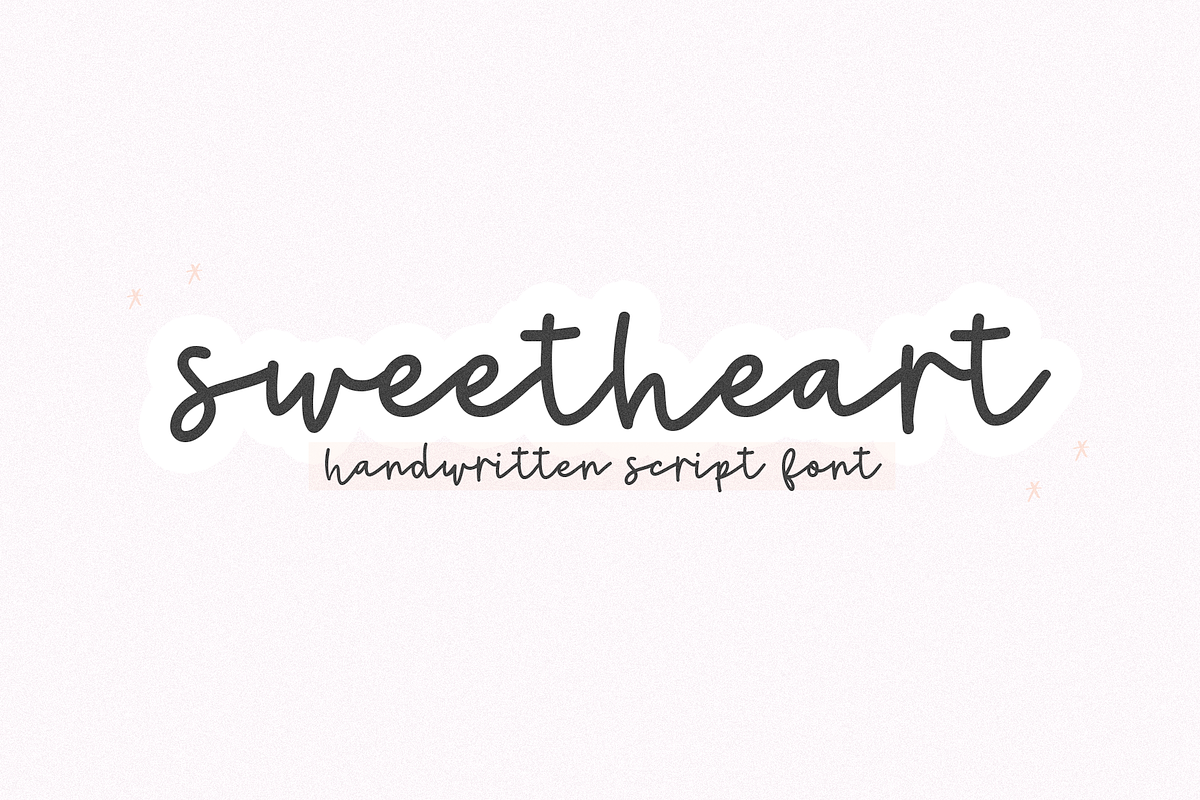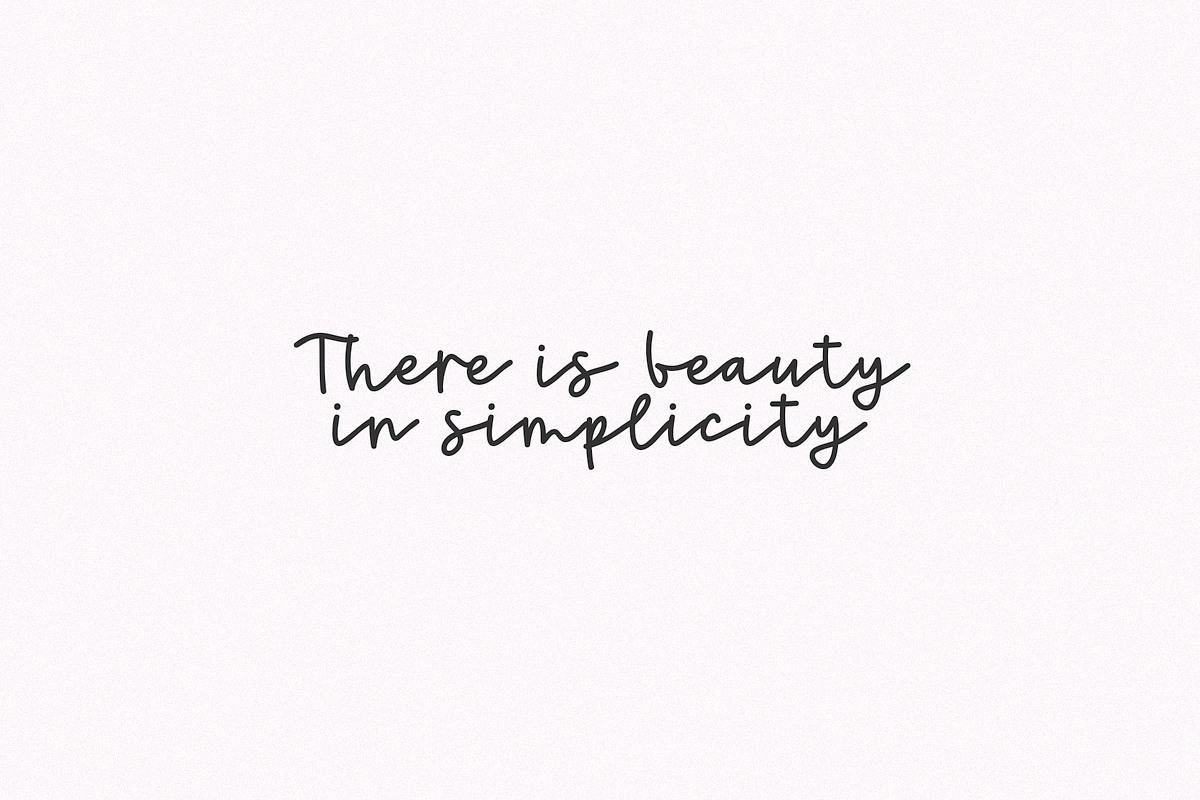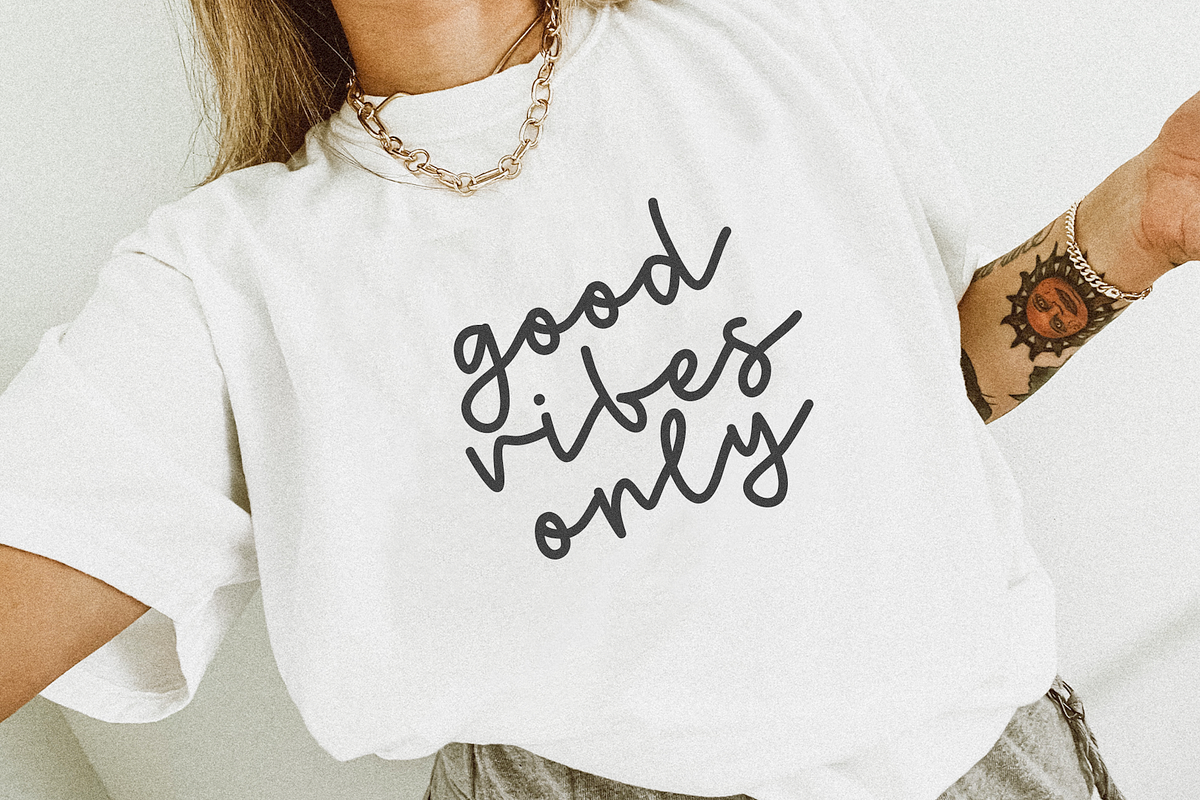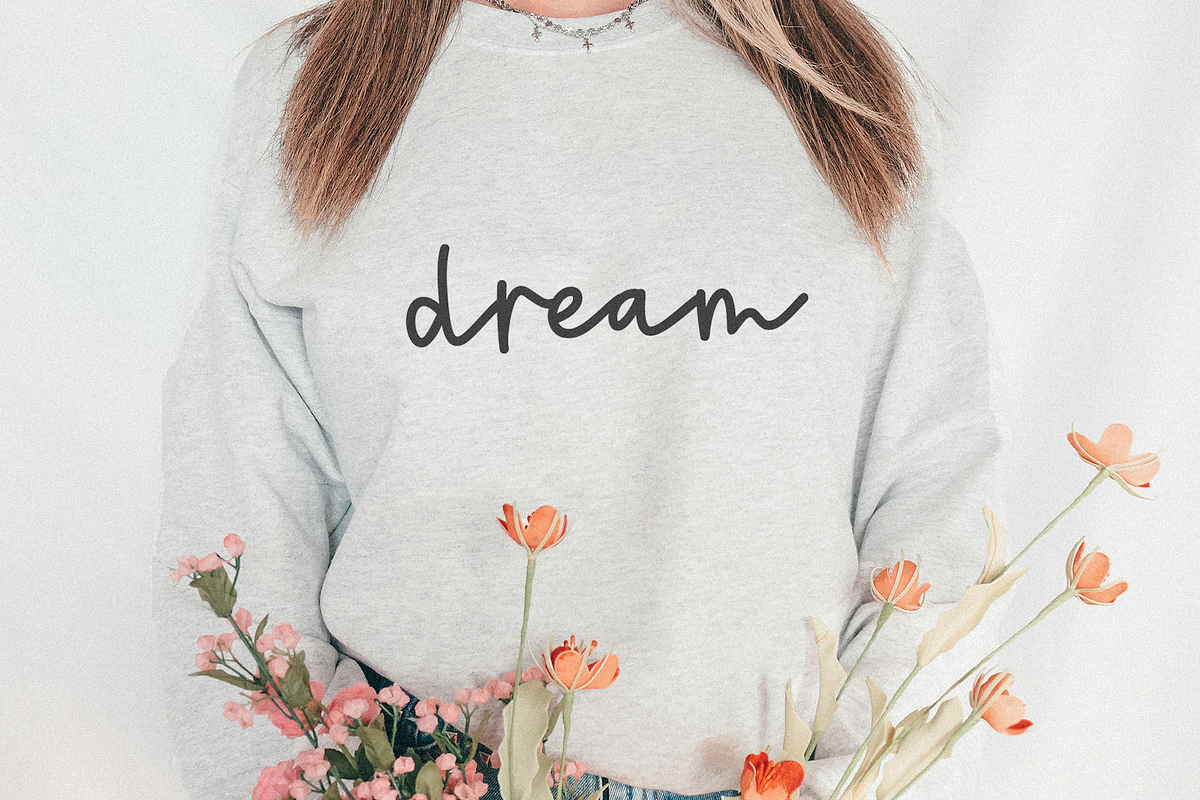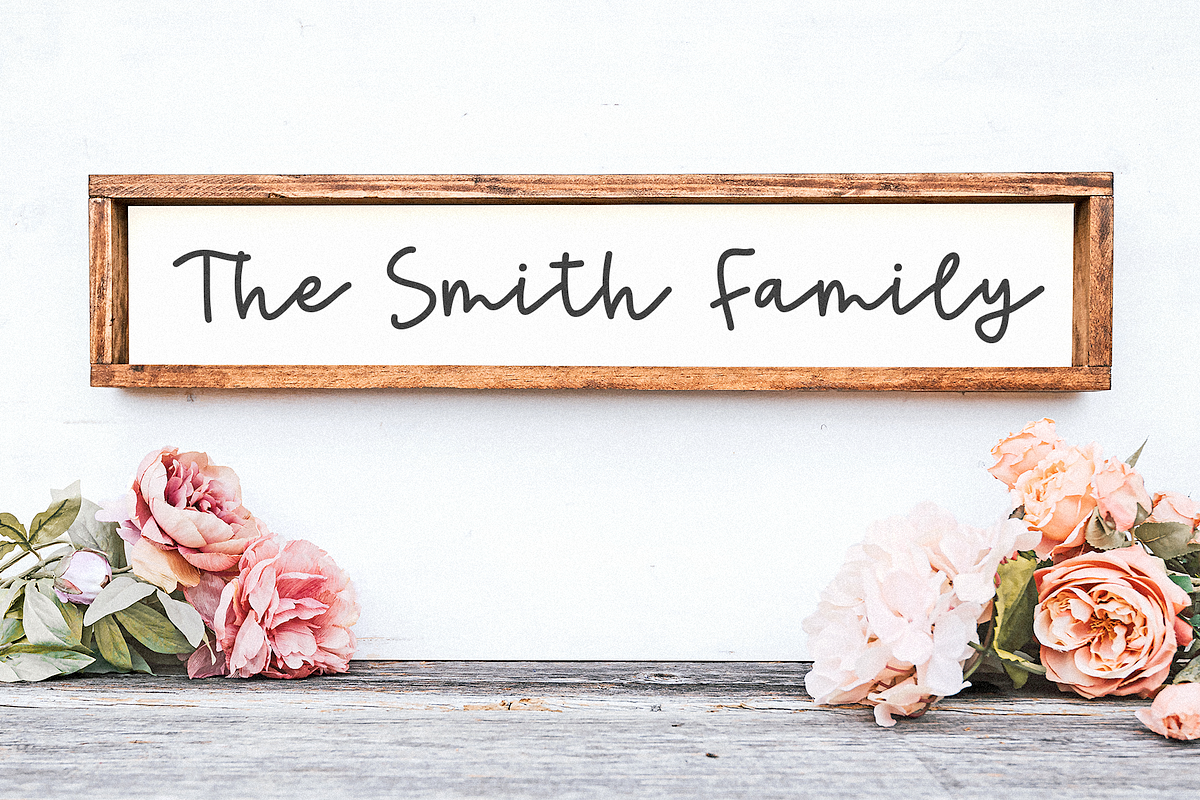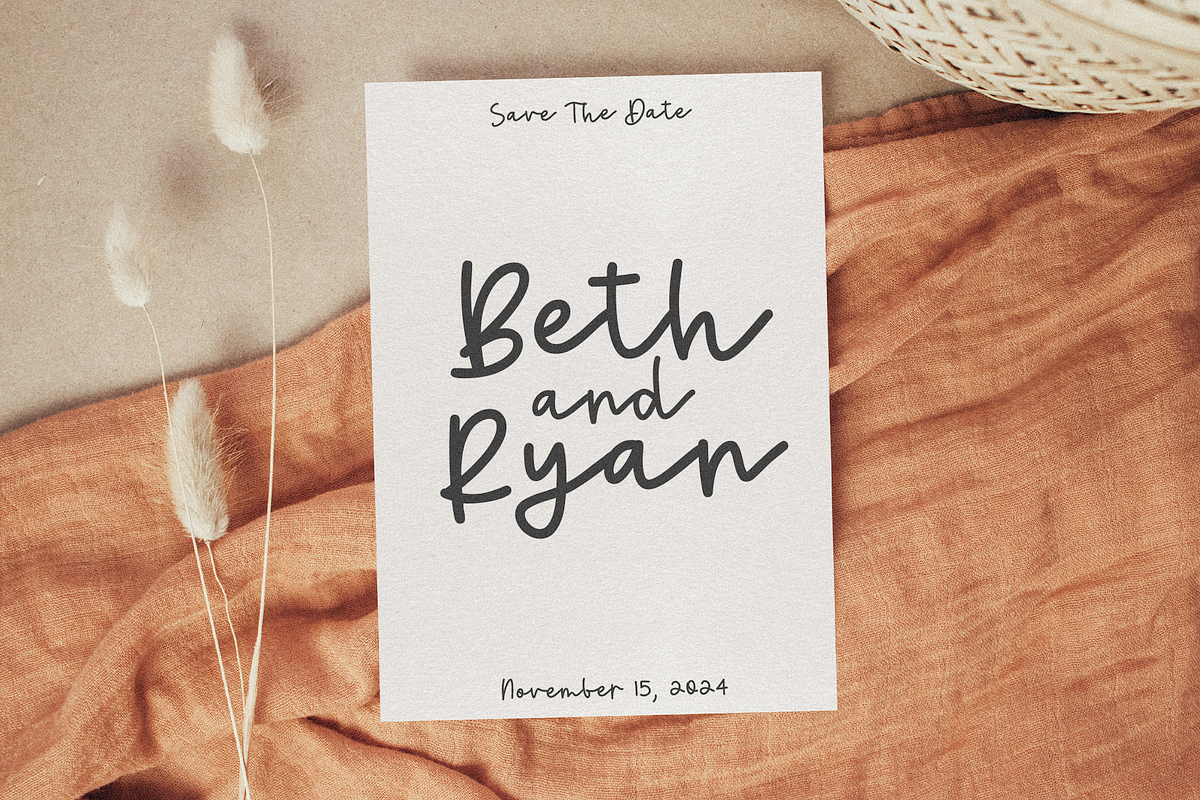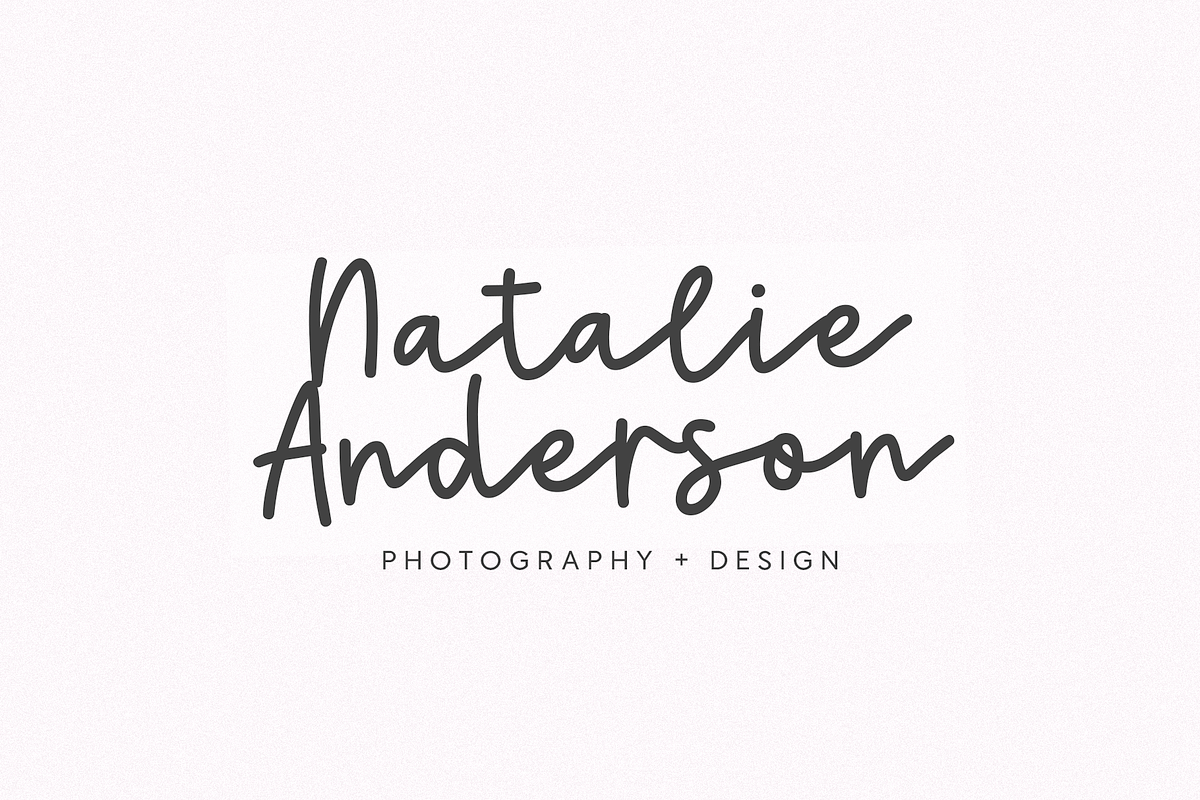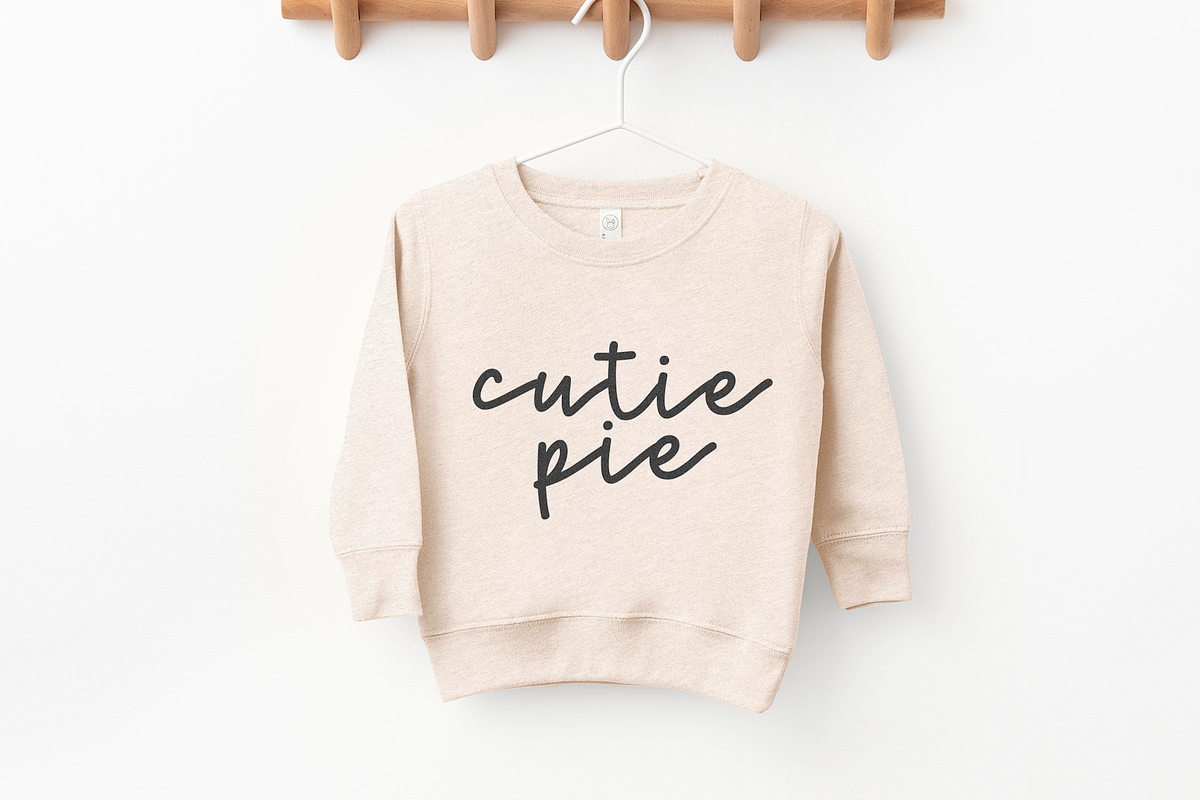
Sweetheart | Script Font
Sweetheartis a handwritten script font.
This font is perfect for quotes, svg files, crafts, shirts, stickers, blogs, logos, invitations and more!
Sweetheart | Script Font by KA Designs fits naturally into Branding, posters, packaging, typography.